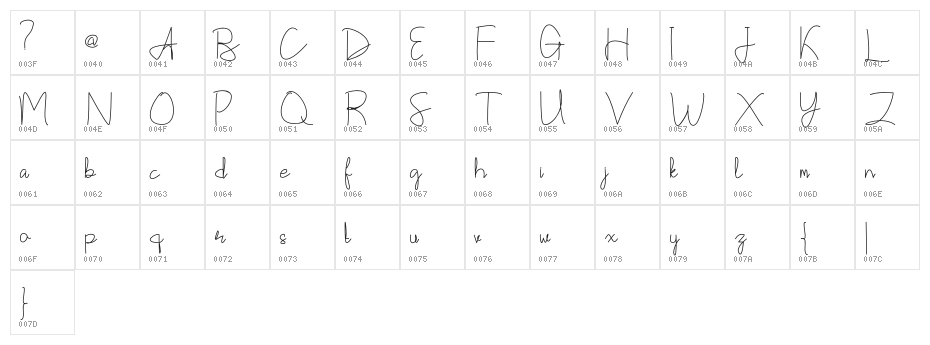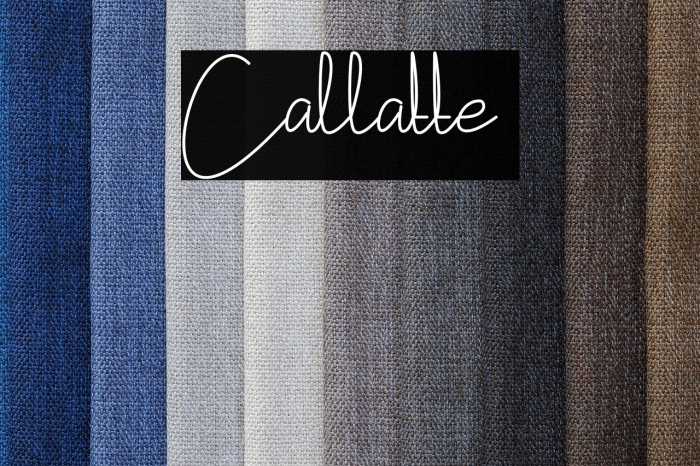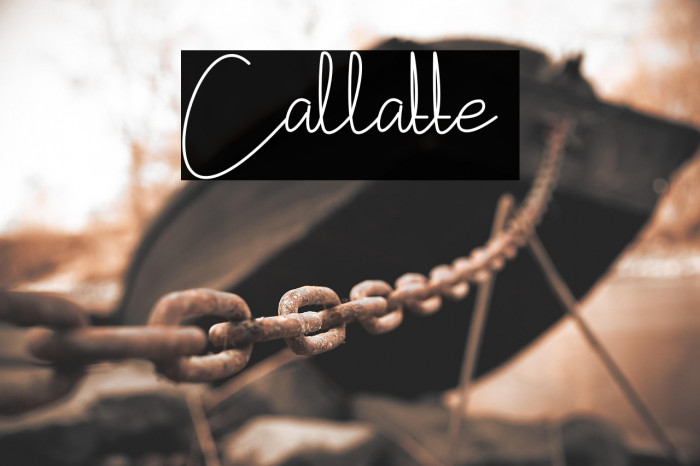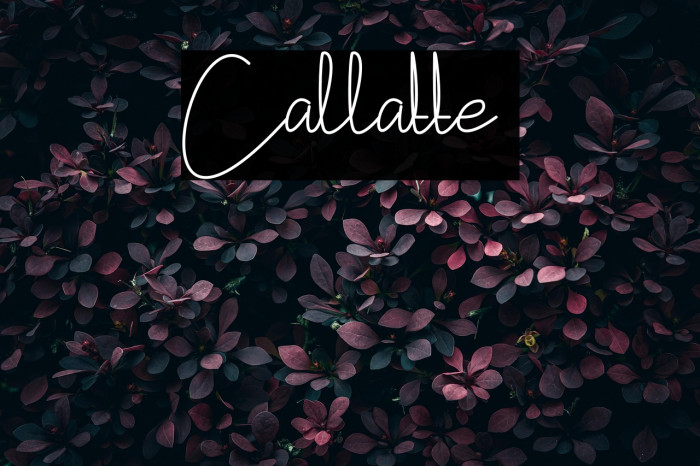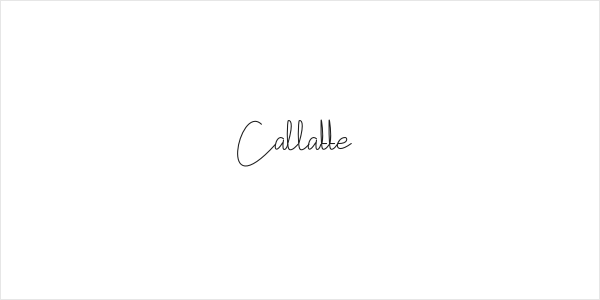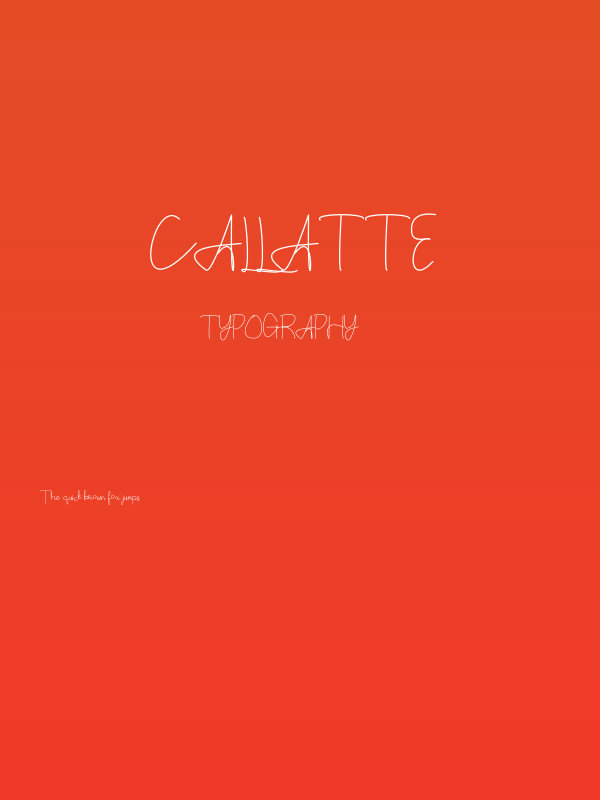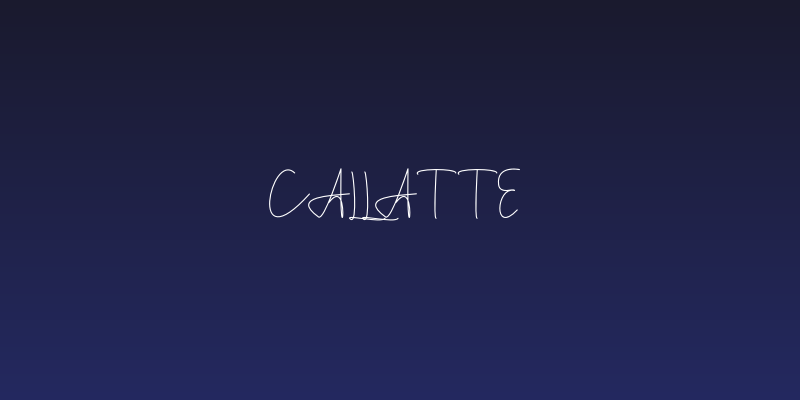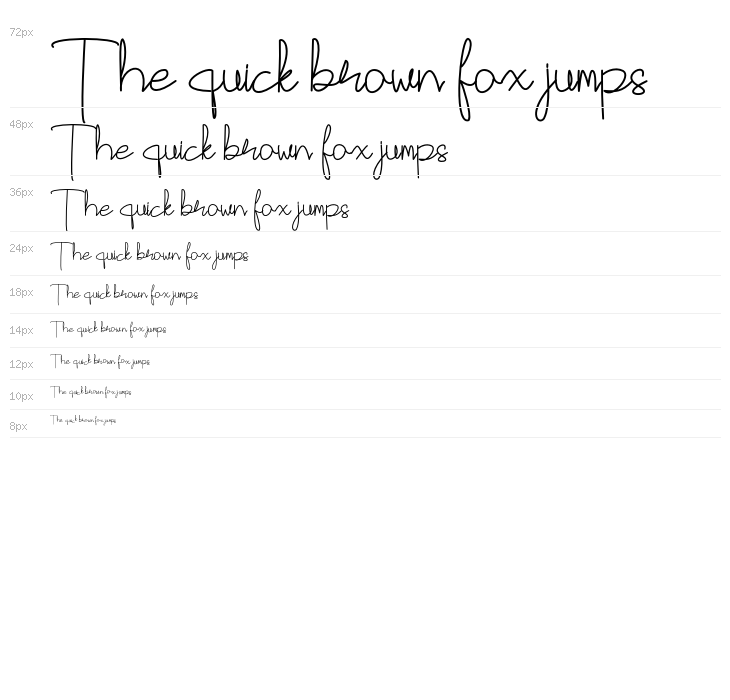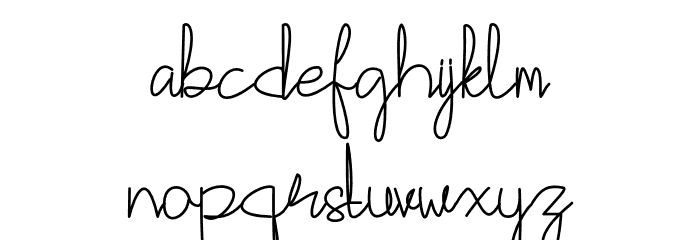
Callatte Font
Callatte Description
This font features a playful and whimsical handwritten style, characterized by its flowing and irregular strokes. The uppercase letters exhibit a tall and narrow form, with a slight slant that adds to the casual and informal appearance. The lowercase letters maintain a consistent style, with loops and curves that enhance the handwritten feel. The overall design is light and airy, making it suitable for projects that require a personal touch. The font lacks special characters, focusing solely on the alphabet, which emphasizes its use in creative and artistic contexts.
| Use Case | Headlines, Creative projects |
| Proposed Projects | Ideal for greeting cards, invitations, personal branding, and creative projects. |